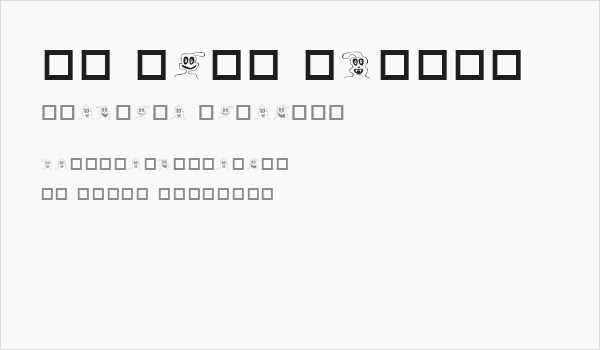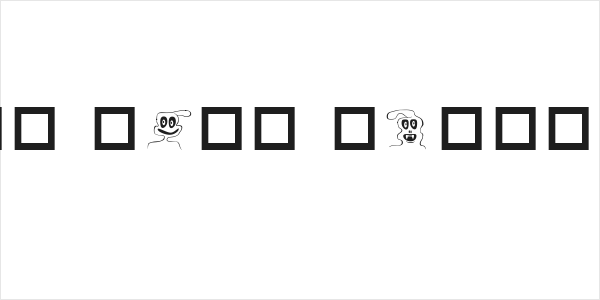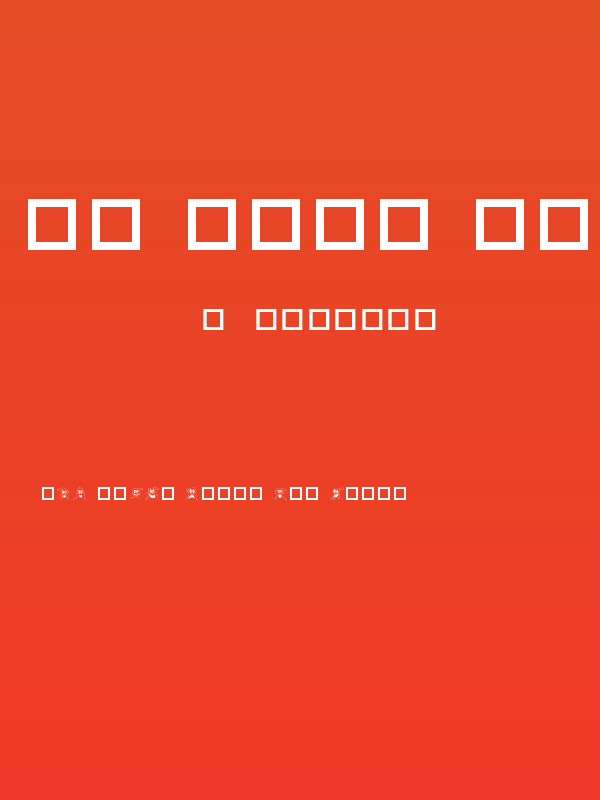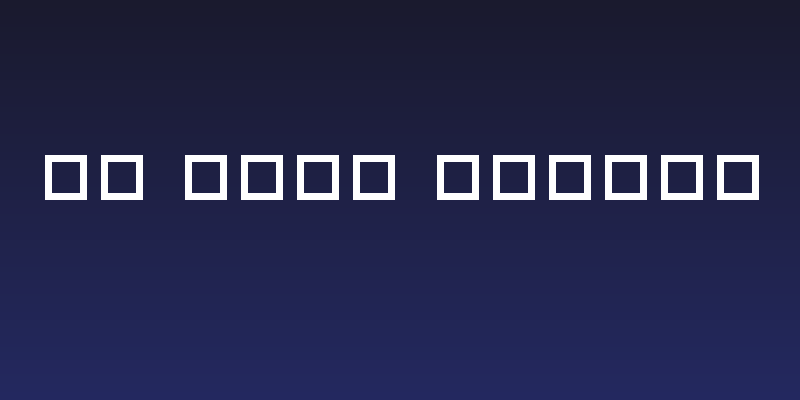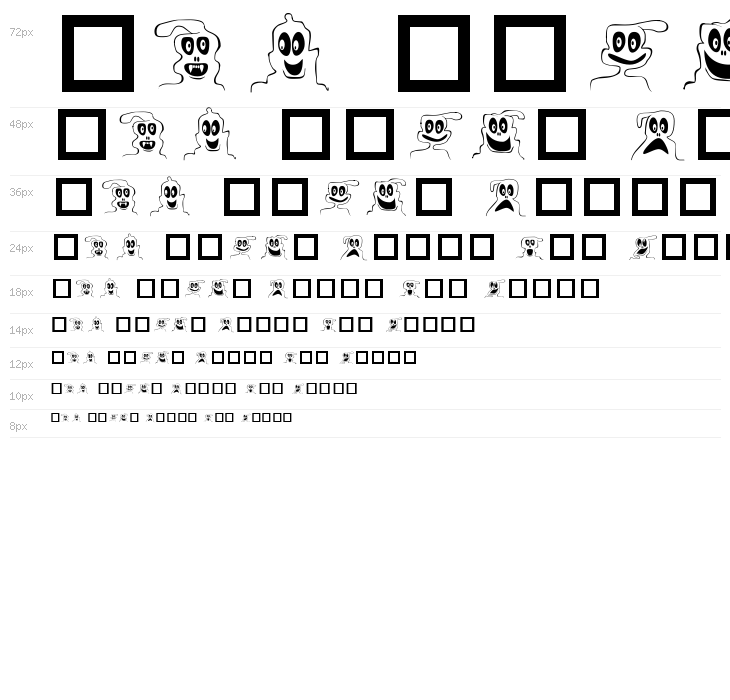
10 Lil' Ghosts Font
10 Lil' Ghosts Description
This font is a playful and whimsical design featuring small ghost characters in place of traditional letters and numbers. Each character is uniquely styled with expressive faces, adding a fun and spooky element to any text. The ghosts have a cartoonish appearance, with exaggerated features that convey various emotions, making the font ideal for Halloween-themed projects or any design requiring a touch of humor and creativity. The characters are evenly spaced, ensuring readability while maintaining their quirky charm. This font is perfect for creating eye-catching headlines, posters, and invitations that need a playful and festive touch.
Overall StylePlayful, Whimsical
Use CaseHeadlines, Posters, Invitations
Proposed ProjectsIdeal for Halloween invitations, party posters, children's books, and themed event signage.